Elegant fonts have the charm to turn any design into a captivating one. You can use them for invitation cards, quotes, or even marketing materials. Canva has a list of all types of fonts, even classy ones.
30+ Elegant Fonts On Canva
1. Imbue 72pt:
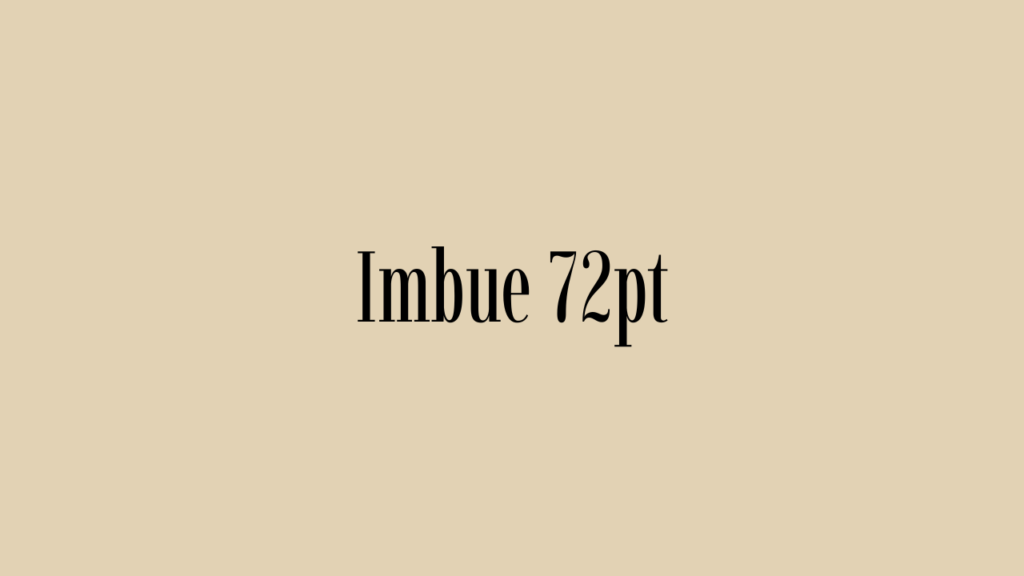
2. Boston Angel:
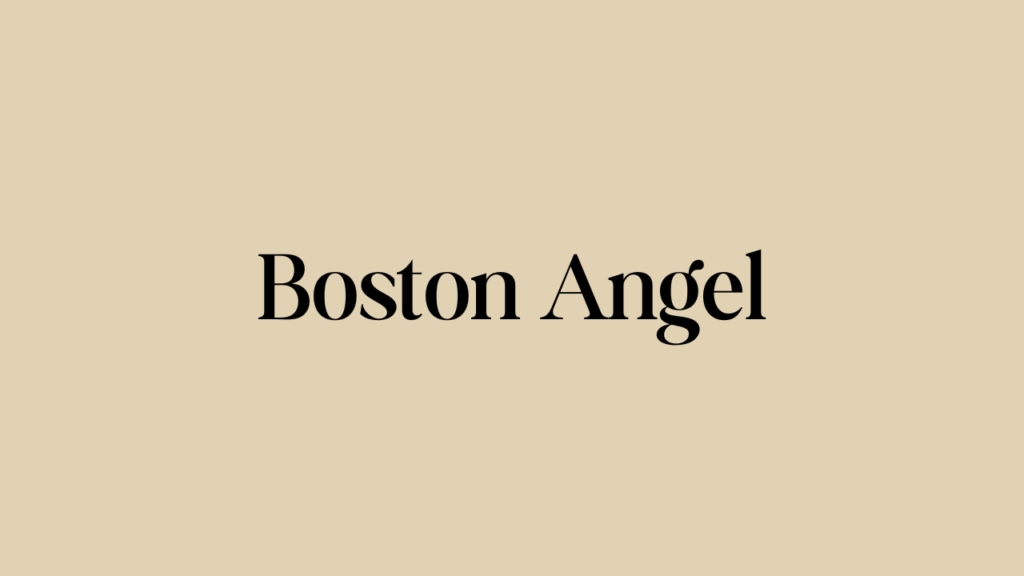
3. Kenao Sans Serif:
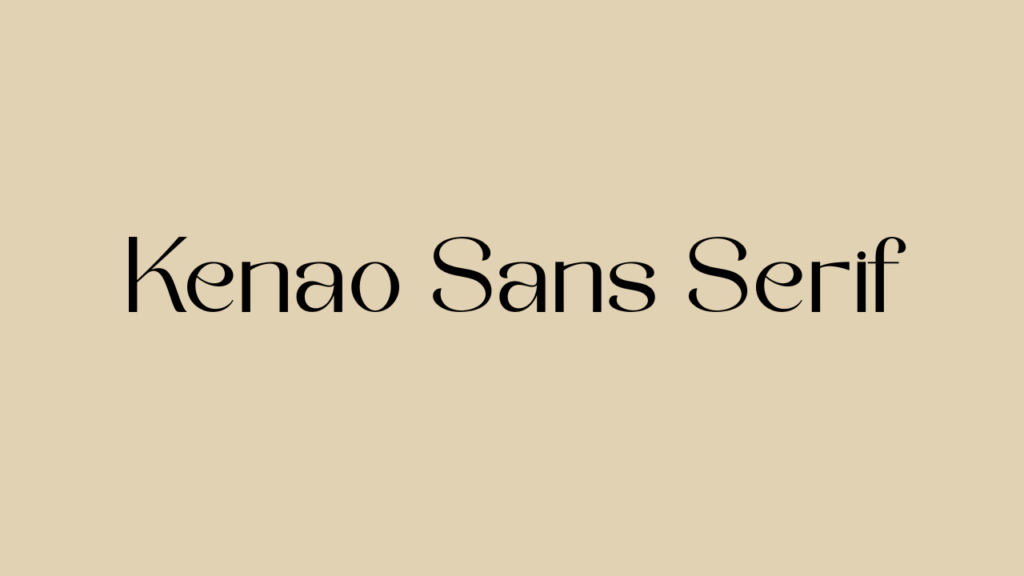
4. Dream Avenue:
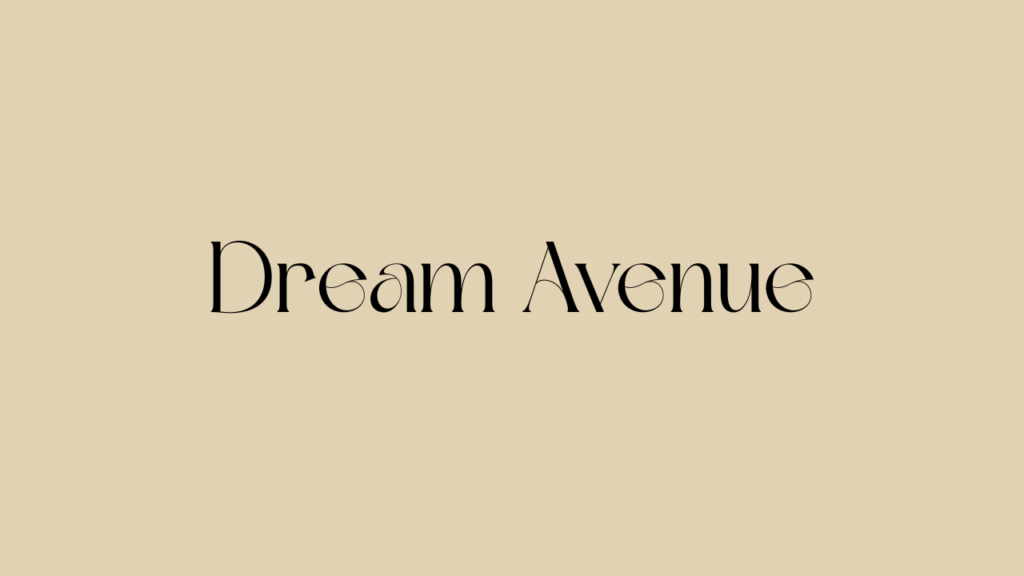
5. Cinzel Decorative:
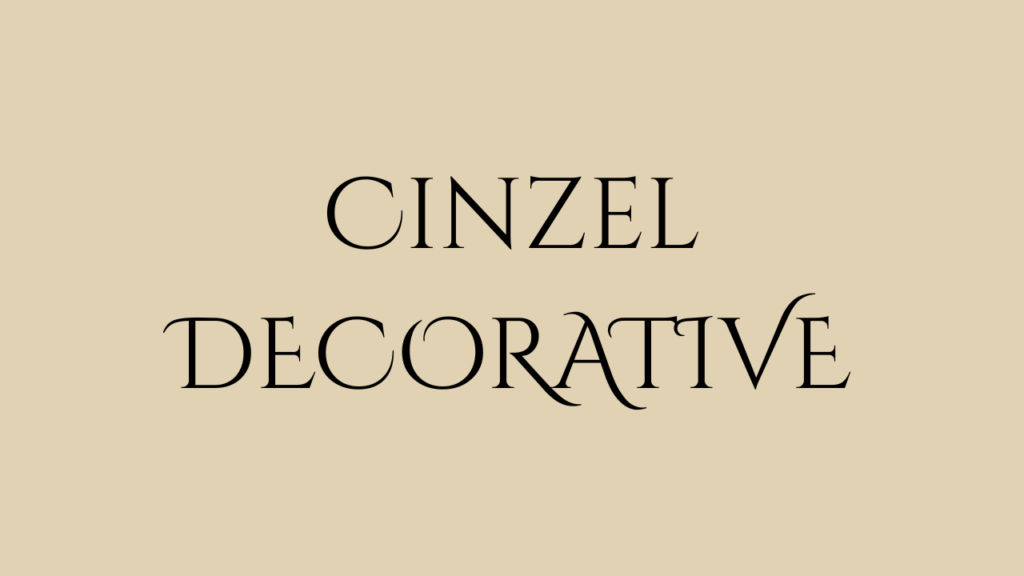
6. Lancelot:
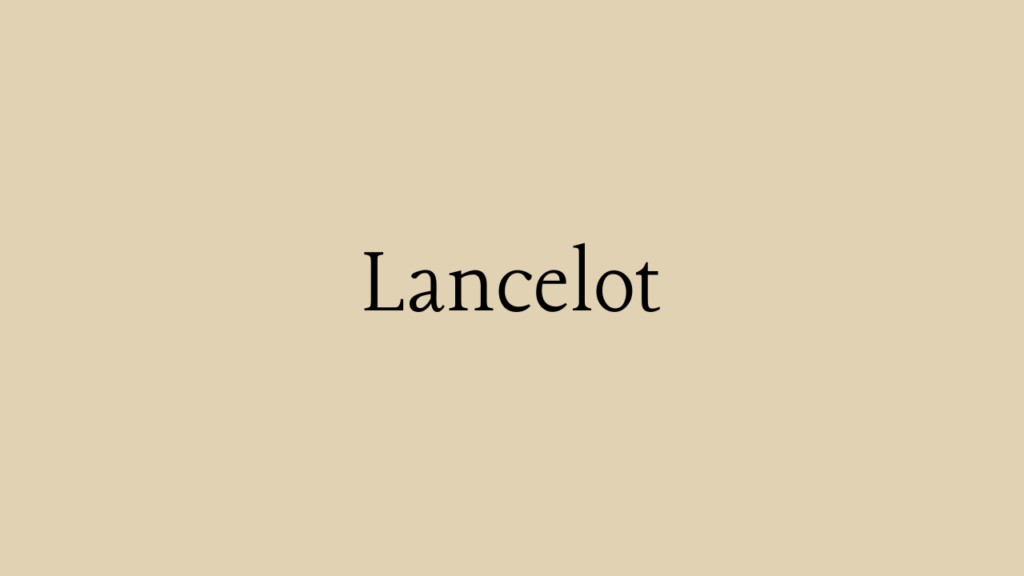
7. Anaktoria:
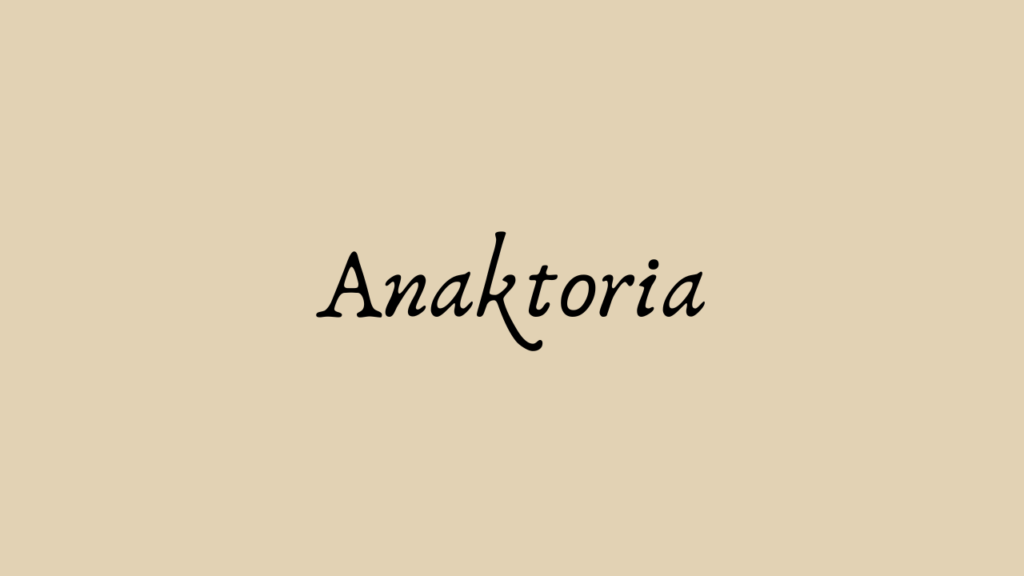
8. Della Respira:
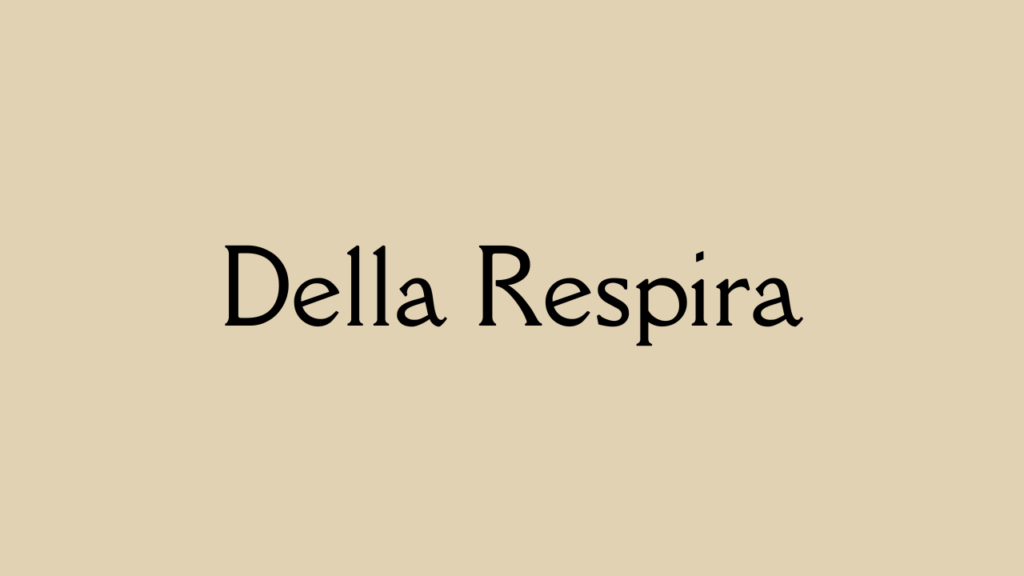
9. Giaza:
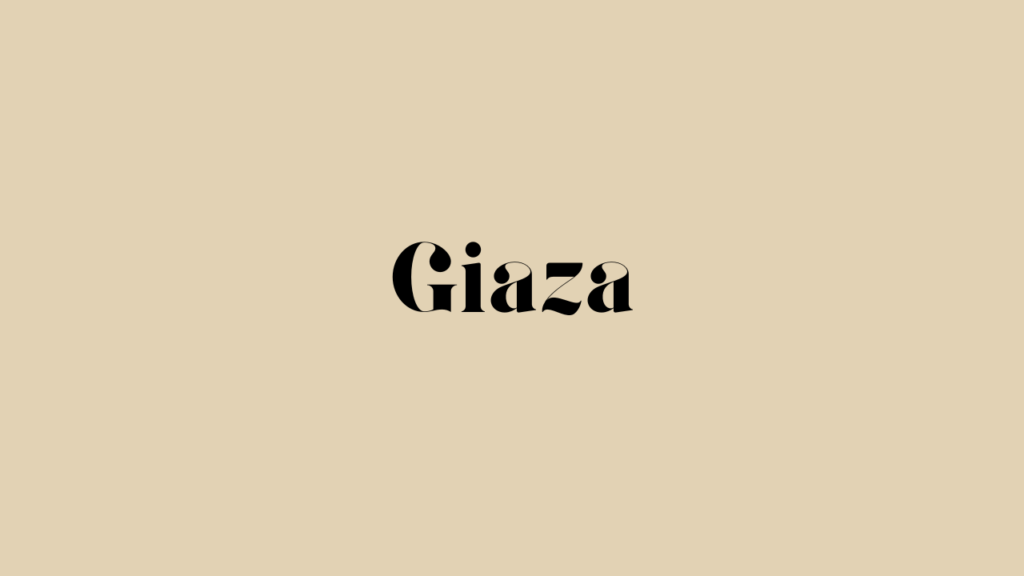
10. Trochut:
11. Brown Sugar:
12. Blosta:
13. Giaza Stencil:
14. Coterie:
15. Blosta Script:
16. Hello Paris Script:
17. Pinyon Script:
18. Vidaloka:
19. Hello Paris:
20. Josefin Slab:
21. Tall:
22. Girassol:
23. Tan Pearl:
24. Virtual:
25. Kage:
26. Alegreya SC:
27. Euphoria Script:
28. Julius Sans One:
29. Niconne:
30. Parisienne:
31. Alta:
32. Great Vibes:
33. Manison:
34. Pompiere: